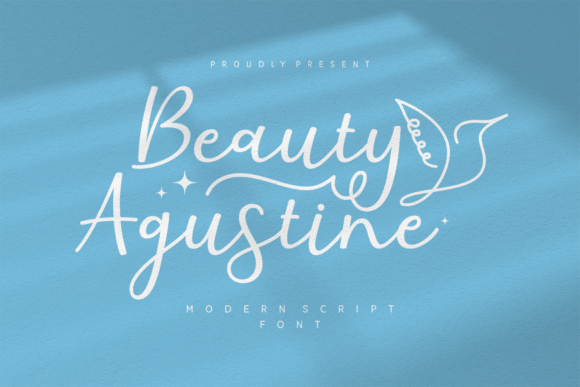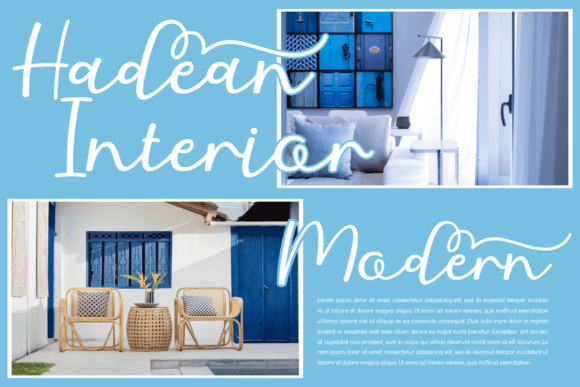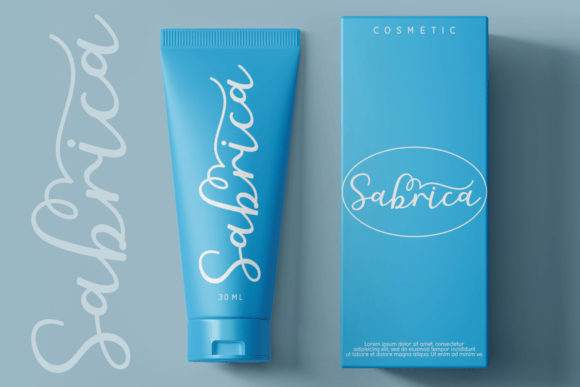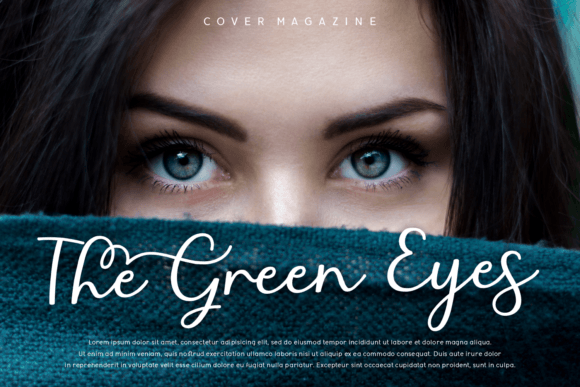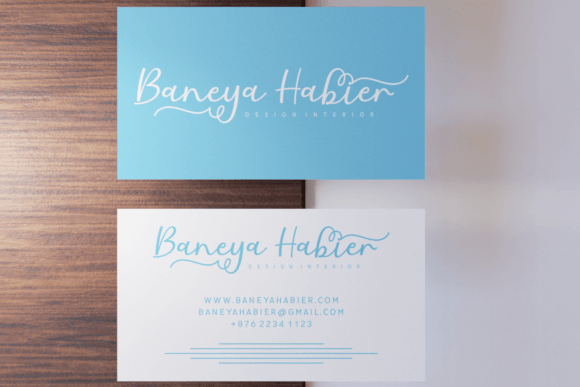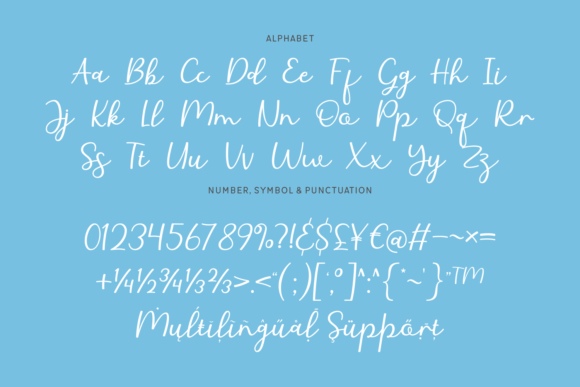
Unleashing the Beauty in Your Typography
Have you ever been stuck in a creative rut, unable to find the perfect font to match your vision? You’re not alone. As designers, we’ve all been there – scrolling through endless font options, searching for that elusive combination of style and elegance. But what if I told you there’s a font that can elevate your designs and make them truly unforgettable?
Enter the Beauty Agustine Font, a stunning script font that’s as charming as it is versatile. This beautiful font is perfect for adding a touch of sophistication to your invitations, product labels, cards, and quotes. With its PUA-encoded glyphs and swashes, you’ll have endless possibilities for creating unique and captivating typography designs.
Beauty Agustine Font Key Features
- Font Family: Beauty Agustine Font is a unique, handwritten font family with multiple styles, including Regular, Bold, Italic, and Bold Italic.
- Character Set: Supports a wide range of languages, including Latin, Cyrillic, and Greek, making it suitable for international design projects.
- Size and Resolution: Designed to be used at various font sizes, from 12px to 72px, with optimal results at 300 DPI (dots per inch) resolution.
- Unique Characteristics: Features beautiful, flowing connections between letters, giving it a natural, handwritten feel that is perfect for creative, artistic, and emotional designs.
Beauty Agustine Font Review
Initially, I was drawn to the Beauty Agustine Font’s elegant and sophisticated design. ✨ The curves and lines seem to be expertly crafted to evoke a sense of luxury and refinement. I appreciate the subtle flair of the ‘a’ and ‘g’ letters, which add a touch of whimsy to the overall design. ✨ The font’s weight distribution is also noteworthy, with the light weight being particularly effective for headings and the regular weight being ideal for body text.
However, I do have some concerns about the font’s limitations. ⚠️ The font’s x-height is somewhat inconsistent across different weights, which can make it difficult to read in certain contexts. Additionally, the font’s spacing can be a bit tight, particularly in the regular weight, which can make it challenging to discern individual characters. ⚠️ Furthermore, I found that the font’s performance was not ideal when used in small font sizes, with some characters appearing blurry or distorted.
In conclusion, while the Beauty Agustine Font is a visually stunning choice, its limitations prevent it from being a top contender for everyday use. That being said, it would be an excellent choice for high-end branding or marketing materials where a touch of luxury is desired.
Key Strengths and Weaknesses:
- ✨ Elegant and sophisticated design
- ✨ Effective weight distribution
- ⚠️ Inconsistent x-height across weights
- ⚠️ Tight spacing in regular weight
- ⚠️ Poor performance in small font sizes
Practical Application Guide for Beauty Agustine Font
Tip: Use the Beauty Agustine Font to create elegant and sophisticated headings for your designs.
Tip: Use the Beauty Agustine Font to create custom typography for your designs, such as logos or text overlays.
Tip: Use the Beauty Agustine Font to create professional-looking presentations and documents.
The Beauty Agustine Font is ideal for:
- Creating elegant and sophisticated headings.
- Designing custom typography for logos and text overlays.
- Creating professional-looking presentations and documents.